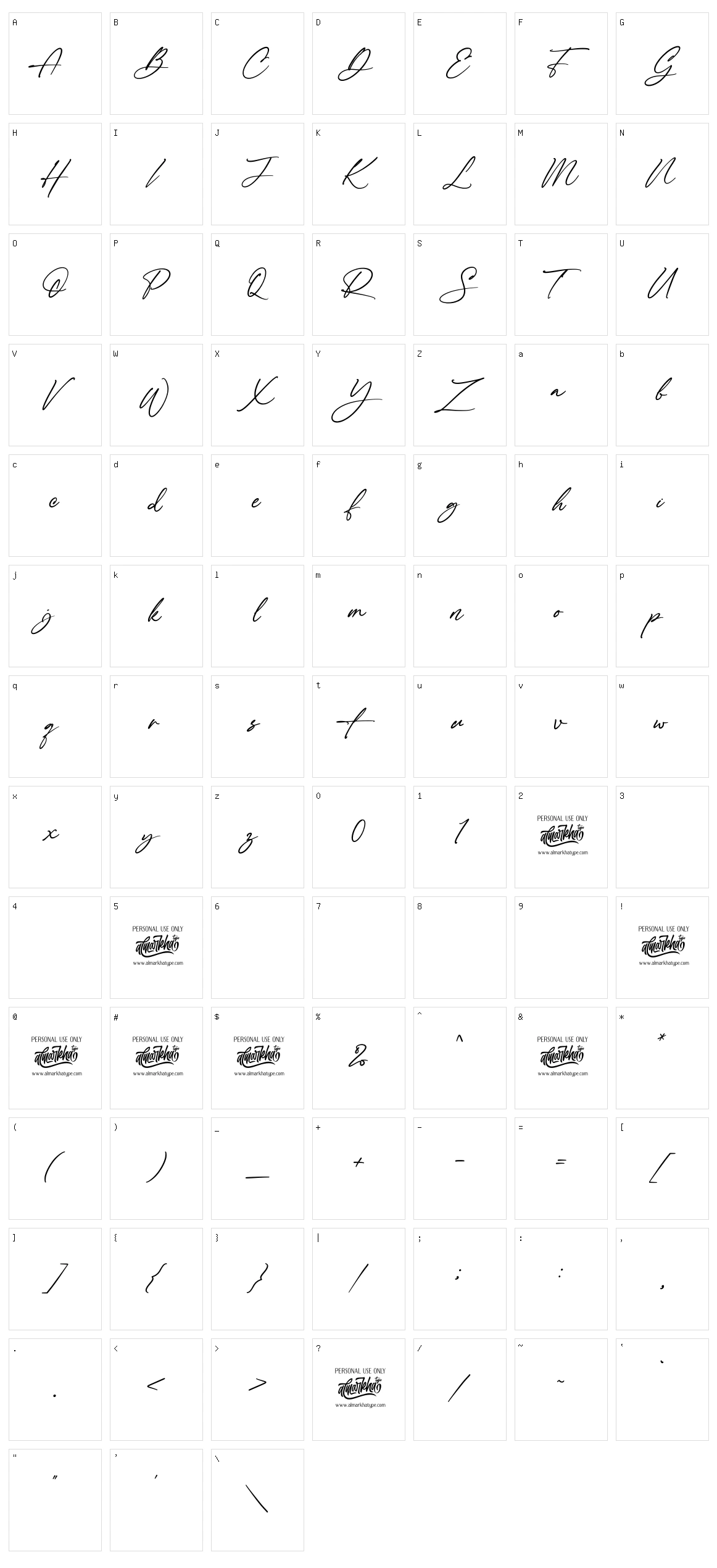
The free font The Checkmate is carefully designed by Almarkhatype, showcasing a thoughtful balance of creativity and usability and falls under the Script font style. When you download the ZIP file, it contains only 495.35 KB of font files, making it lightweight and quick to download. Please review the license details below to understand permitted usage and distribution rights. If license information is not available, we recommend using this font for personal projects only or contacting the author directly for commercial usage permissions.